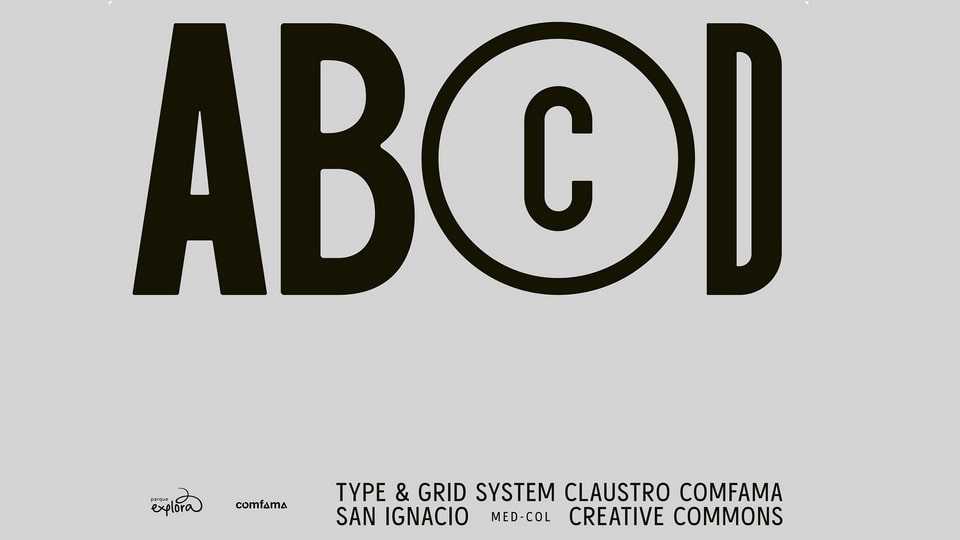
Download 1797 Claustro Comfama font, a typeface designed within the framework of the architectural and content project renovation of the Comfama San Ignacio Cloister.
Designer: Santiago Arango